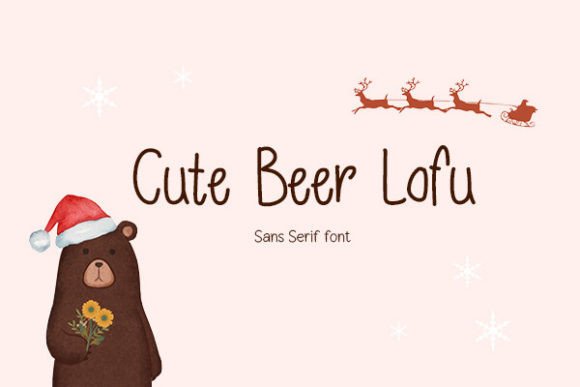
In a world where uniqueness is king and creativity knows no bounds, let Cute Bear Lofu Font be your muse. This exquisite sans serif font is the epitome of charm and playfulness, a modern masterpiece that will transform your designs into captivating works of art.
With its cheerful disposition and playful curves, Cute Bear Lofu Font exudes a sense of joy and wonderment. Its meticulously crafted characters dance across the page like graceful ballerinas, each letter a testament to the designer's passion and skill.
Step into a realm where imagination reigns supreme, where your creative visions take flight, and where Cute Bear Lofu Font becomes your trusted companion. This font is not merely a collection of letters; it's a gateway to a world of endless possibilities.
Picture this: a Christmas card adorned with the whimsical strokes of Cute Bear Lofu Font, spreading warmth and cheer to all who behold it. Or perhaps a playful poster, its message brought to life by the charming dance of the font's characters. The possibilities are as limitless as your creativity.
Cute Bear Lofu Font is more than just a font; it's an experience. It's a journey into a world of whimsy and delight, where your designs take on a life of their own. Let this font ignite your imagination and unlock the boundless potential within you.
Embrace the magic of Cute Bear Lofu Font, and let your creative spirit soar. Let your designs bloom with individuality and charm, captivating the hearts of all who encounter them. In this realm of endless possibilities, anything is possible.